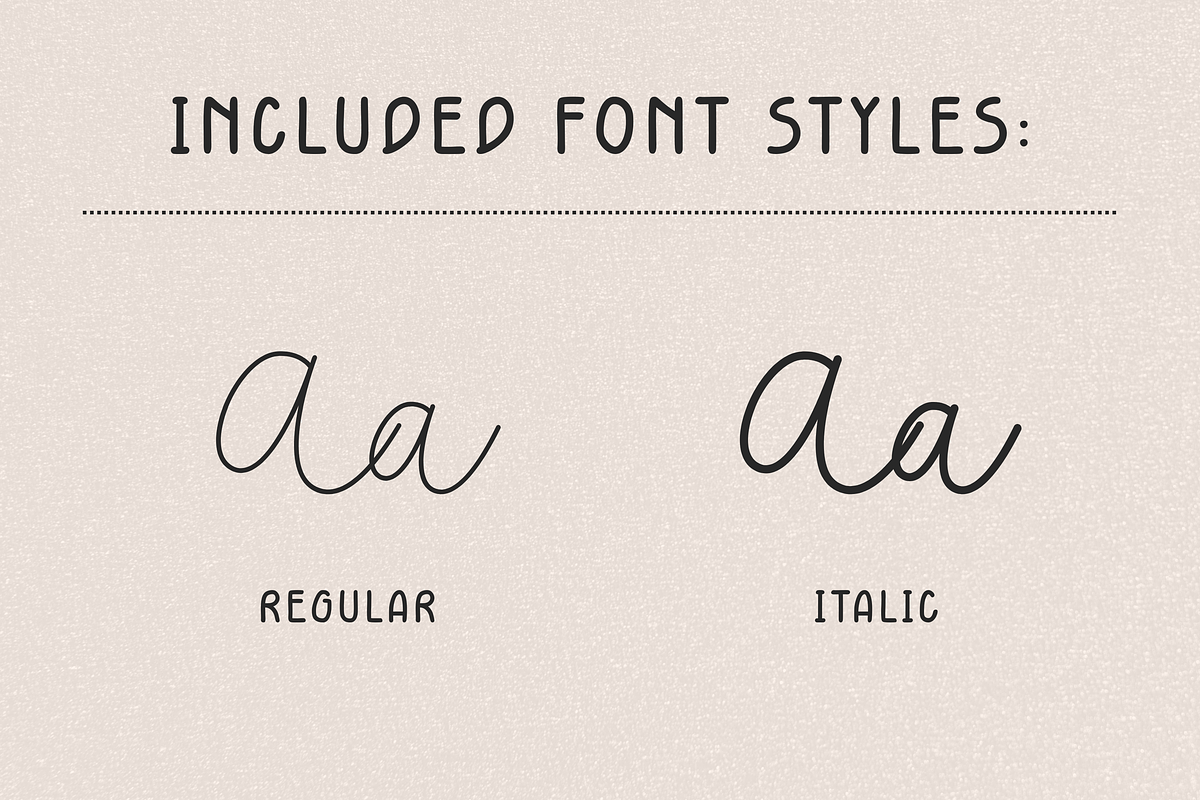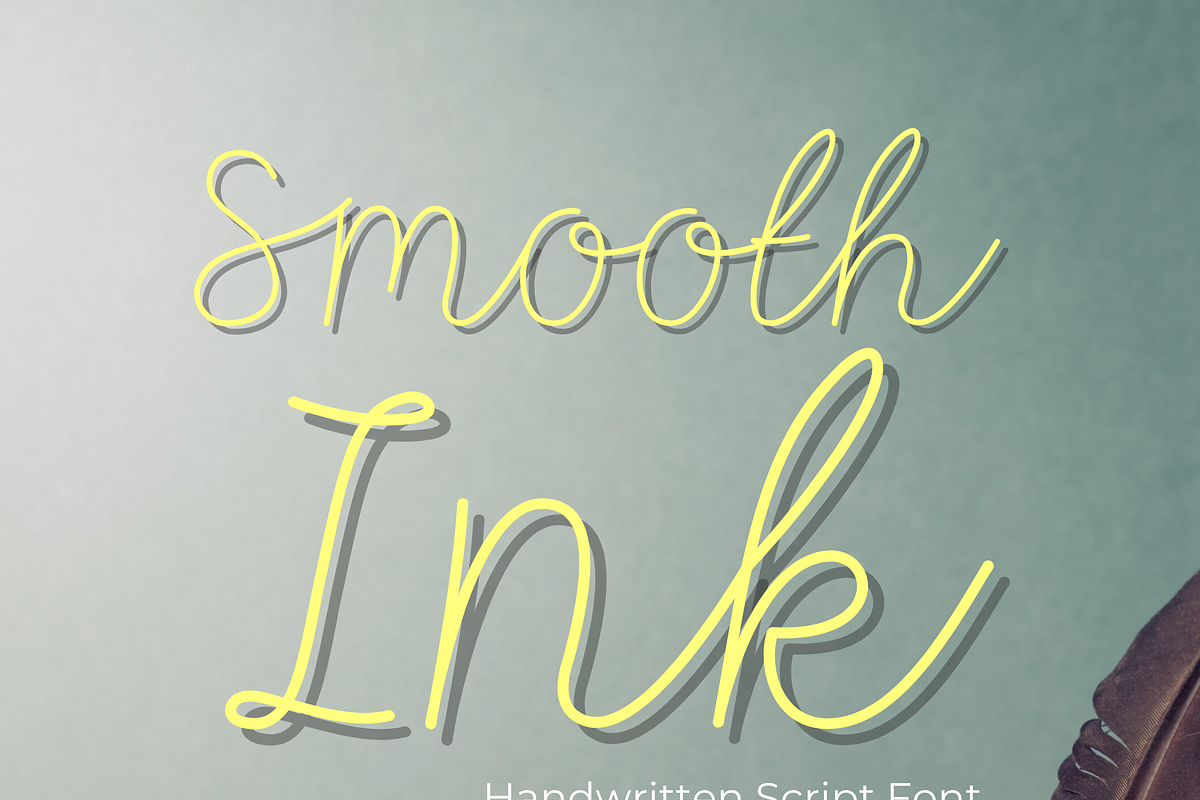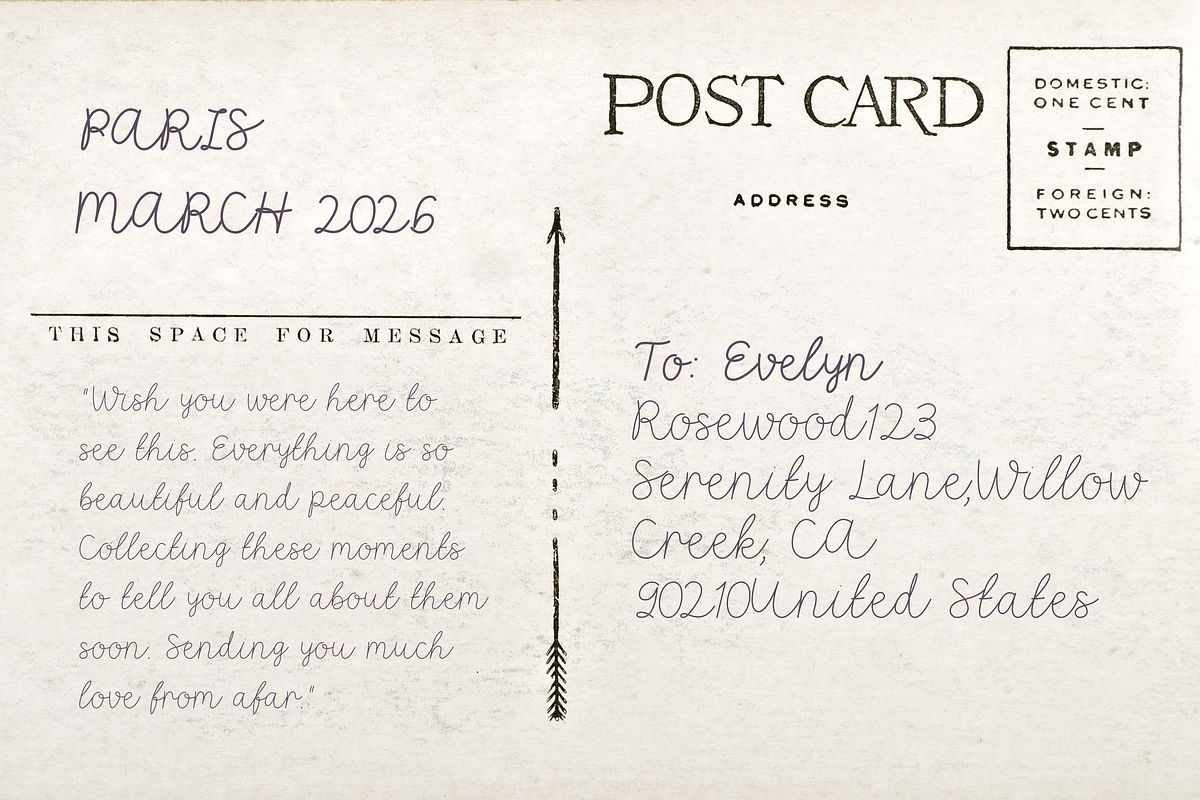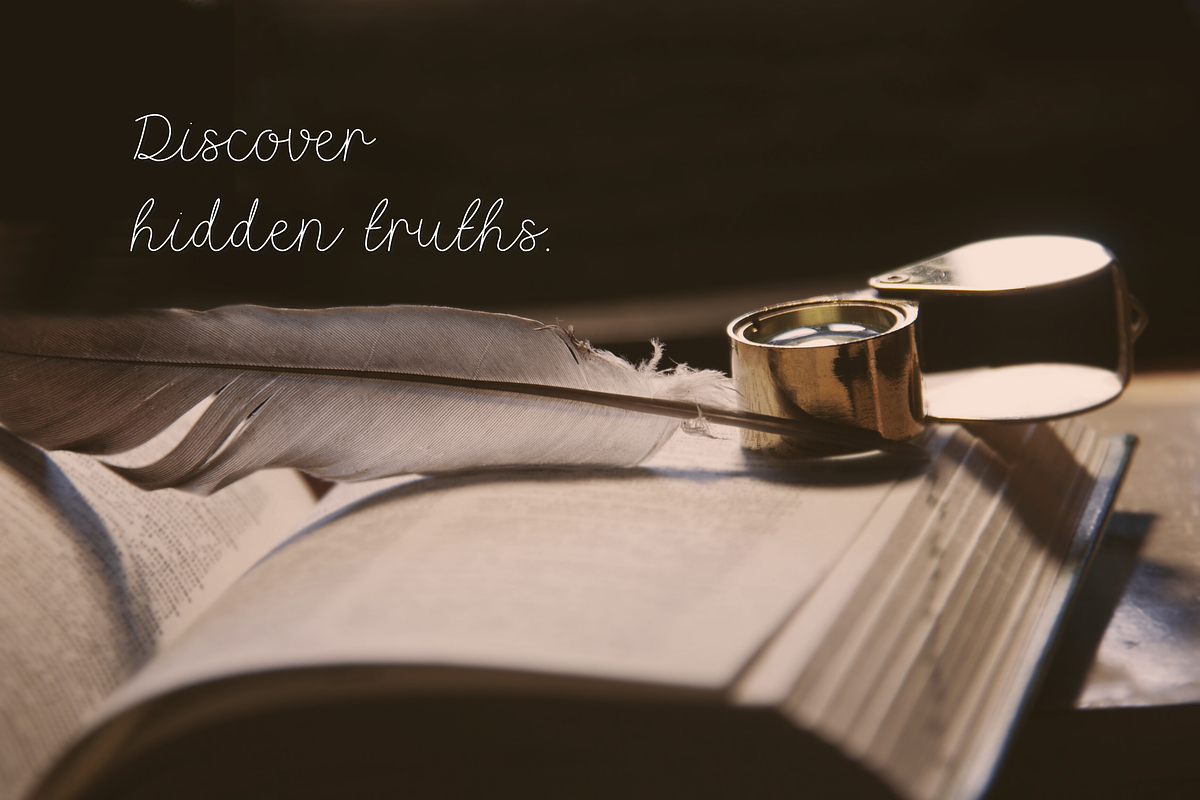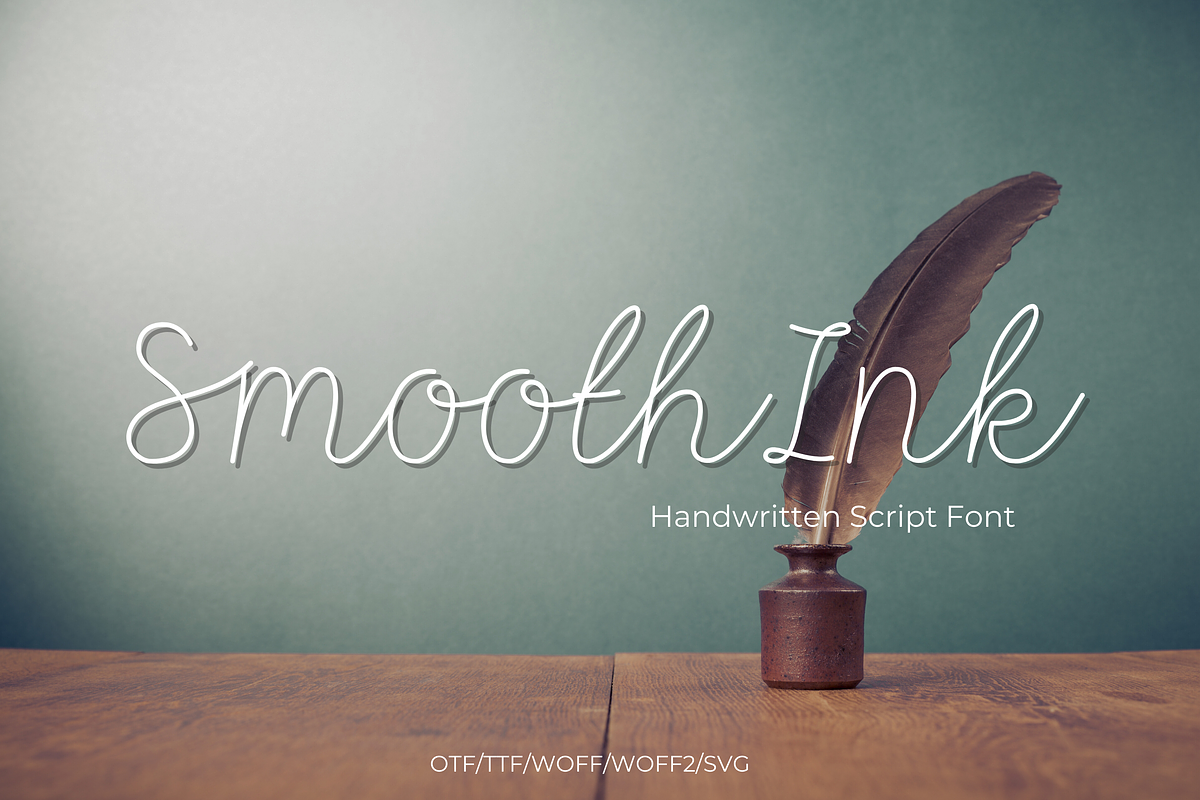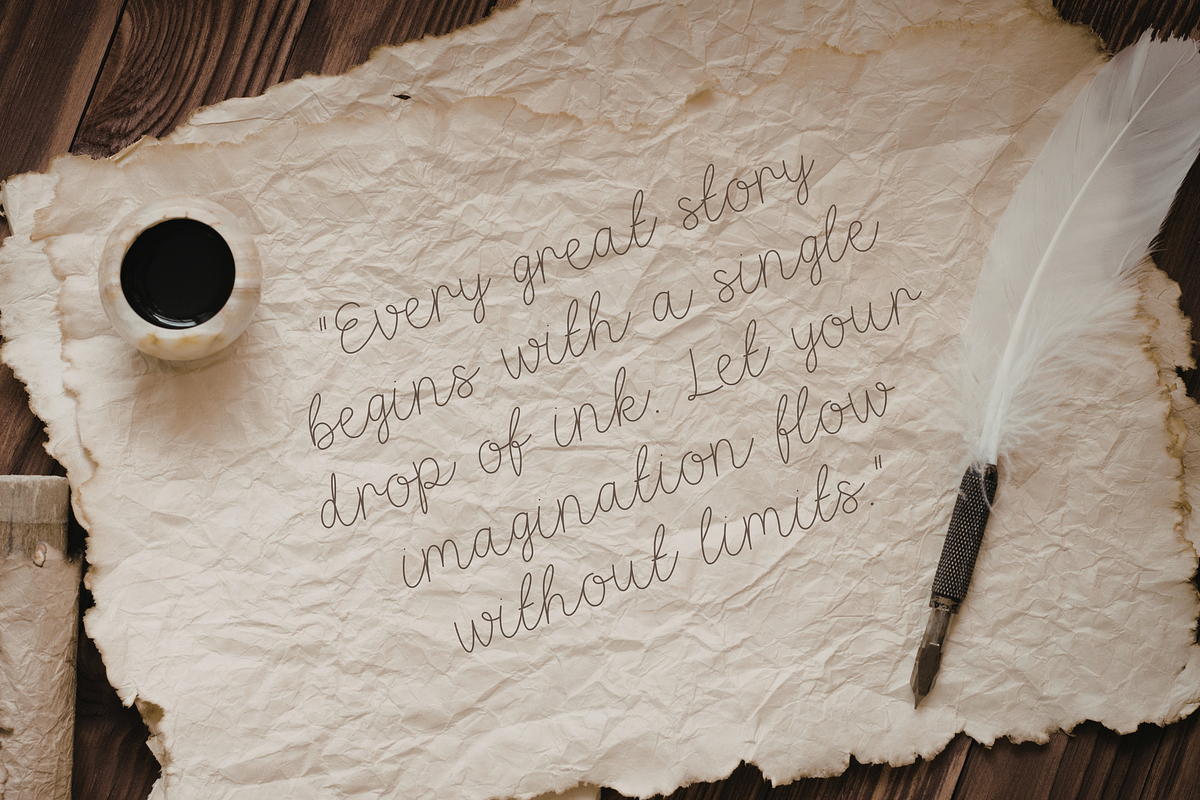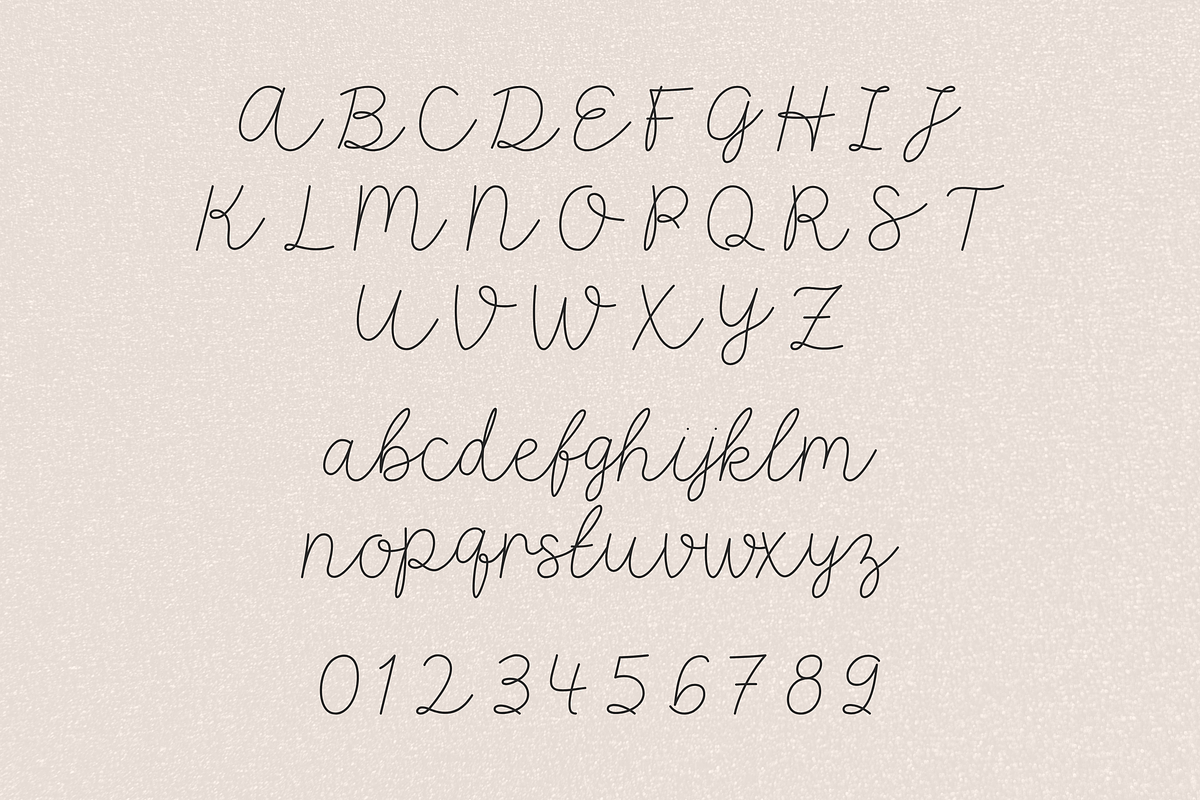
Handwritten Script Font - SmoothInk
✨ SmoothInk – Handwritten Script Font
Add a natural handwritten touch to your creative projects with SmoothInk, a stylish and elegant script font designed to bring warmth and personality to your designs. Its smooth flowing strokes make it perfect for branding, invitations, social media graphics, and more.
Whether you're designing a logo, wedding invitation, or quote art, SmoothInk delivers a beautiful handwritten aesthetic that feels both modern and timeless.